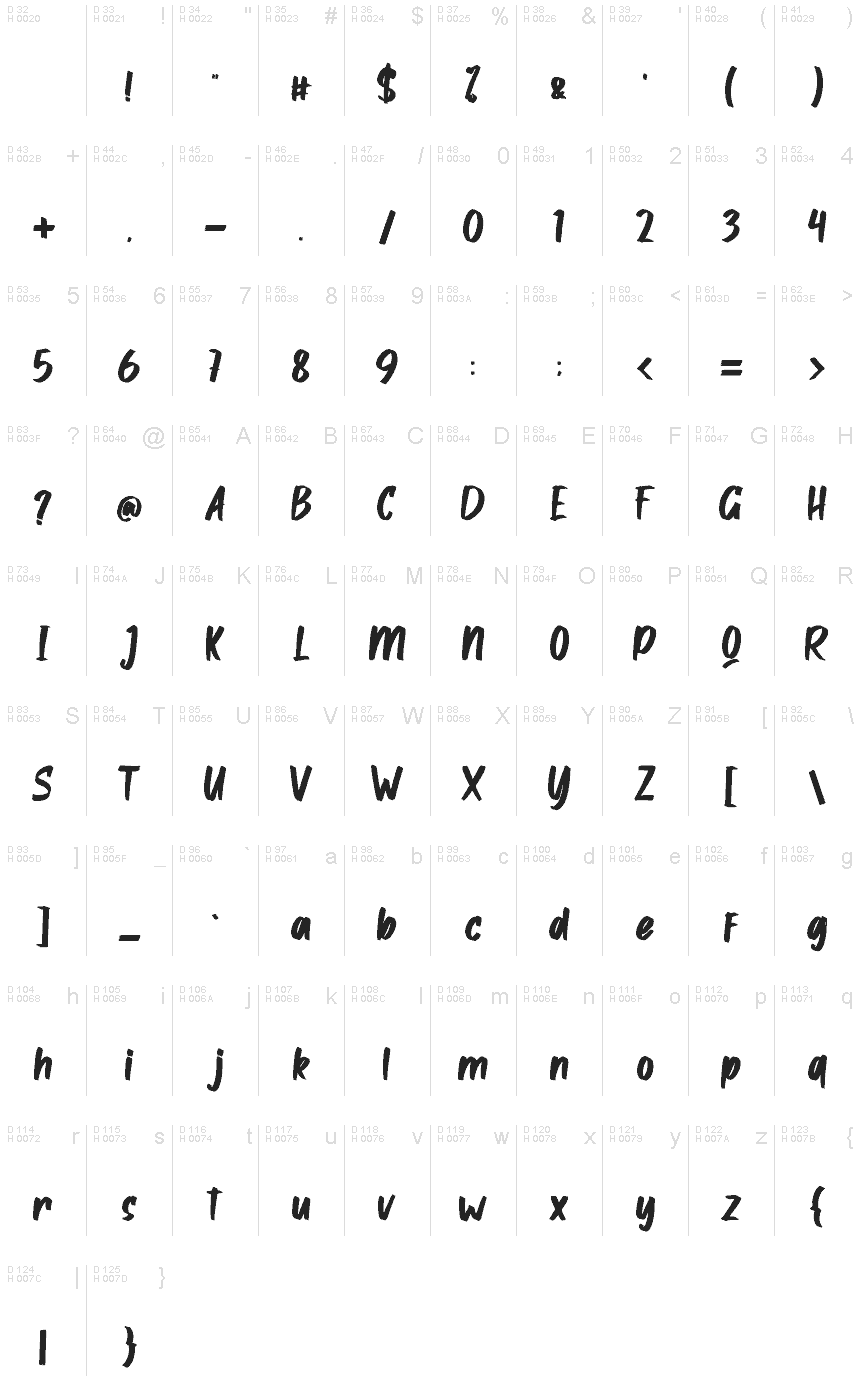
Alston
Alston font by Skiiller Studio masterfully combines a brush style, bold weight, and condensed width to exude artistic flair and expressive mood. The textured finish and modern aesthetic add distinctive character to this eye-catching font. Free to download, it will appeal to anyone looking for artistic inspiration.
Overall Alston is the right fit for social media posts, packaging design, apparel design, branding projects, stationery design, classic advertisements like flyers and posters including digital ads and signage.